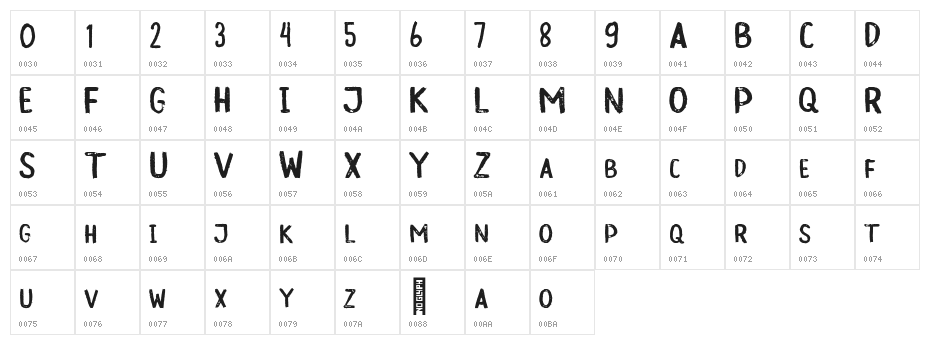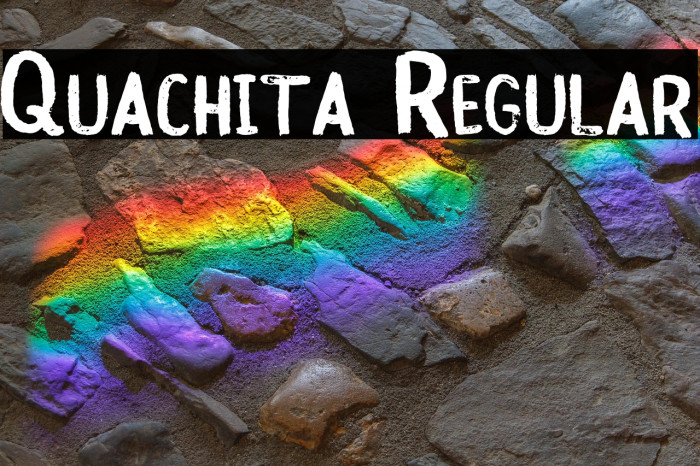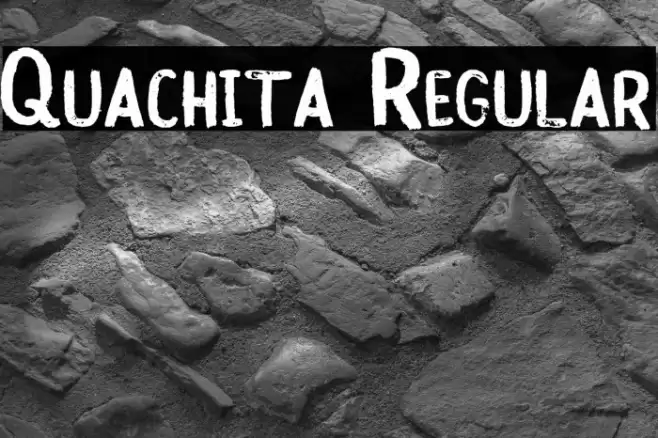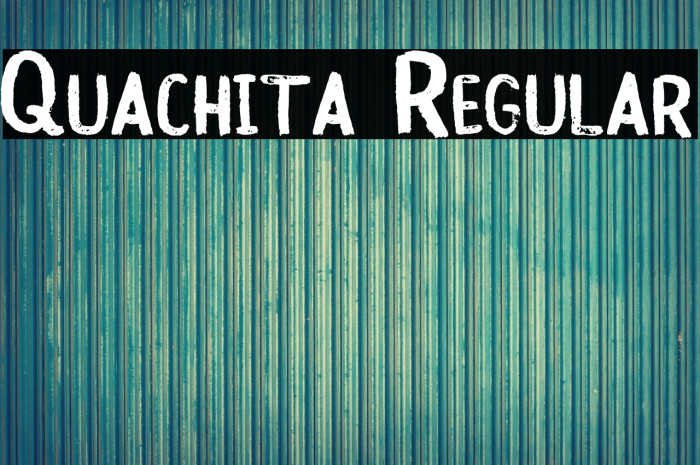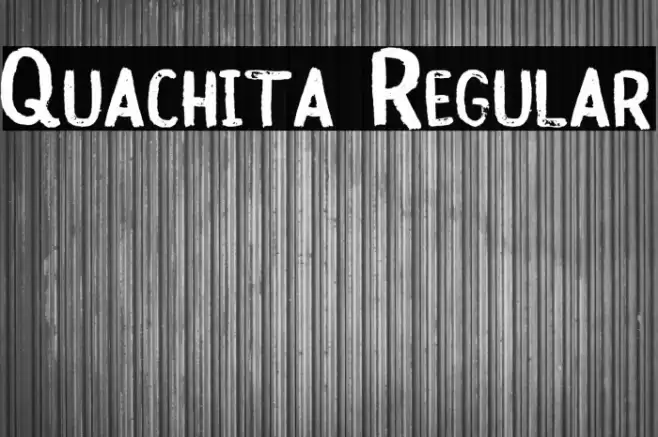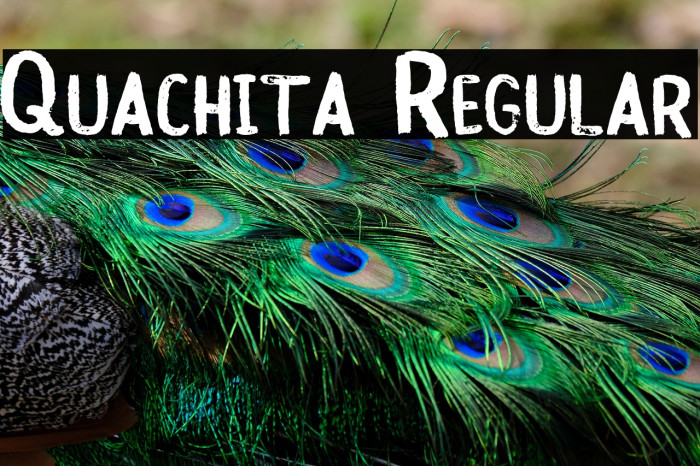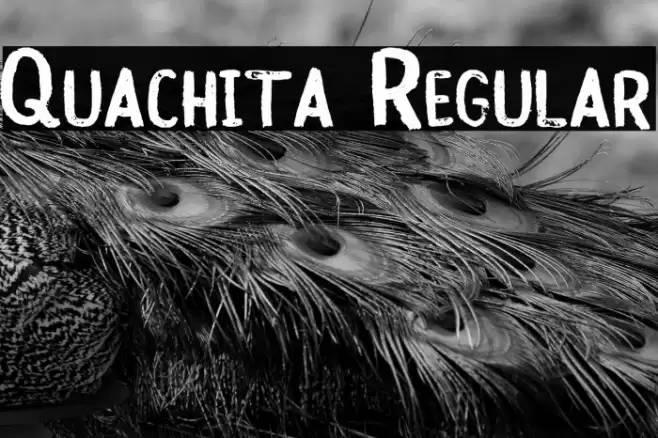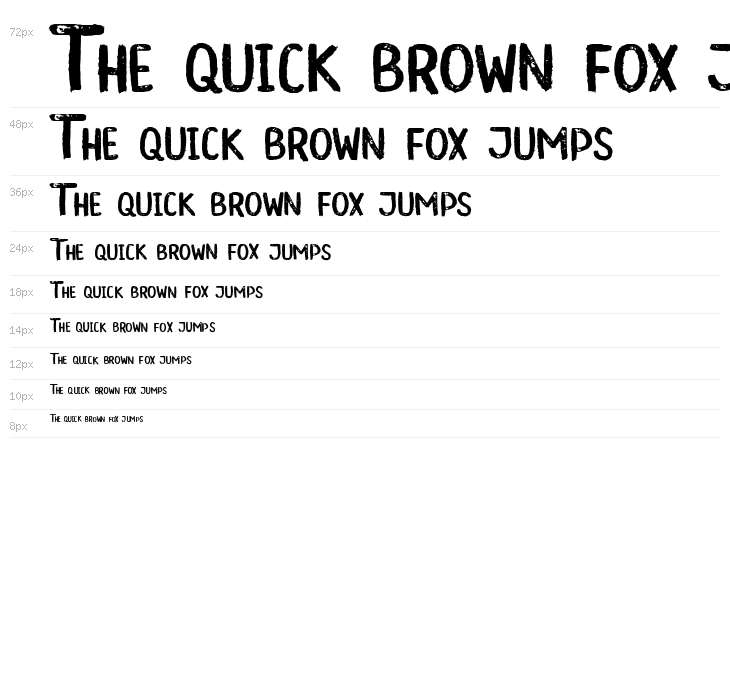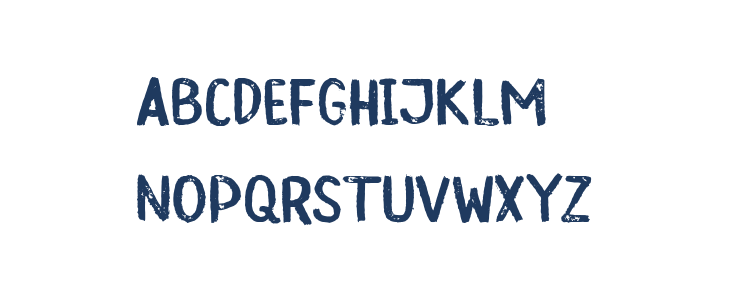
Quachita Regular Font
Quachita Regular Description
This font features a bold and textured appearance, reminiscent of hand-painted or stamped lettering. The characters have a rough, distressed look, giving them a vintage and rustic feel. The uppercase letters are prominent and slightly irregular, adding to the handcrafted aesthetic. The numbers and special characters maintain the same rugged style, ensuring consistency across all glyphs. This font is ideal for projects that require a touch of authenticity and character, such as branding for artisanal products or vintage-themed designs.
Overall StyleVintage
Proposed ProjectsIdeal for branding, packaging, posters, and vintage-themed designs.